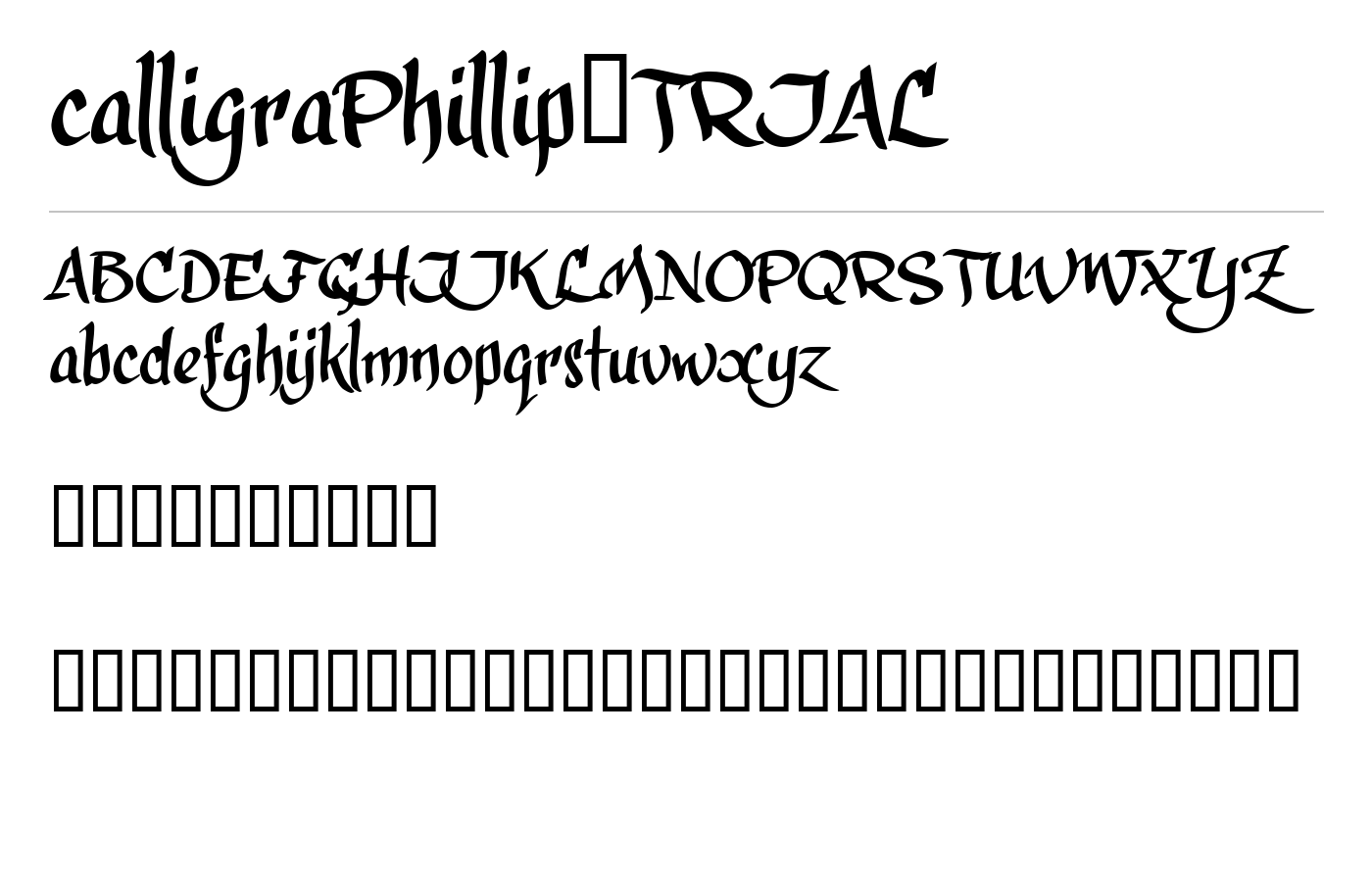
CalligraPhillip_TRIAL is a decorative serif font with a distinctive calligraphic style, featuring sharp, flowing strokes and elegant curves that evoke a handcrafted, artistic feel. Its irregular letterforms and unique character shapes make it ideal for creative projects, logos, or headlines where a dramatic, expressive look is desired. This font works best in designs seeking a touch of sophistication and personality, such as invitations, posters, or branding that values an artisanal and stylish vibe.
calligraPhillip_TRIAL Font
About calligraPhillip_TRIAL Font
| Font family | calligraPhillip_TRIAL Font |
| Designer | Jeroen JW van der Ham / JOEBOB graphics |